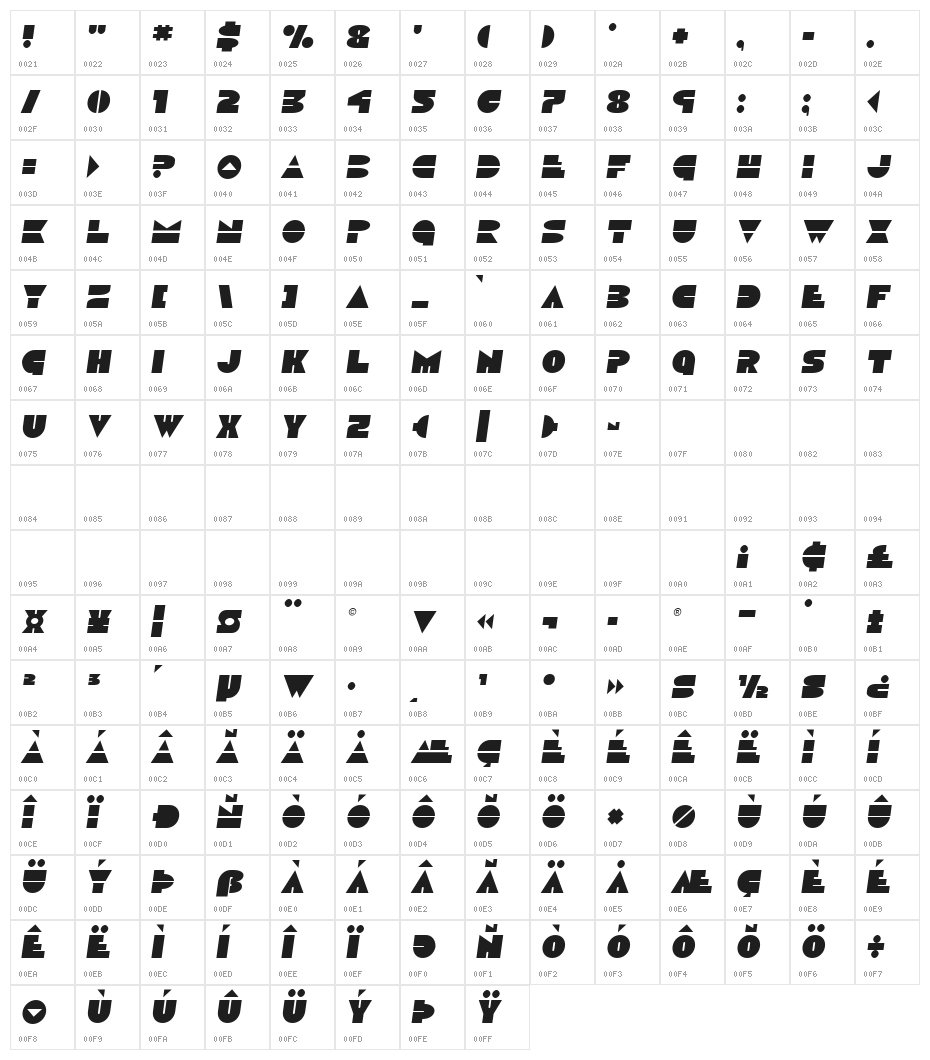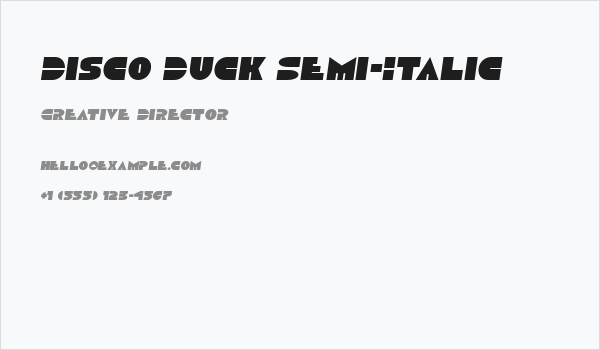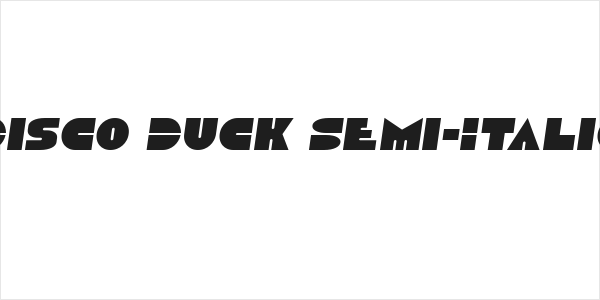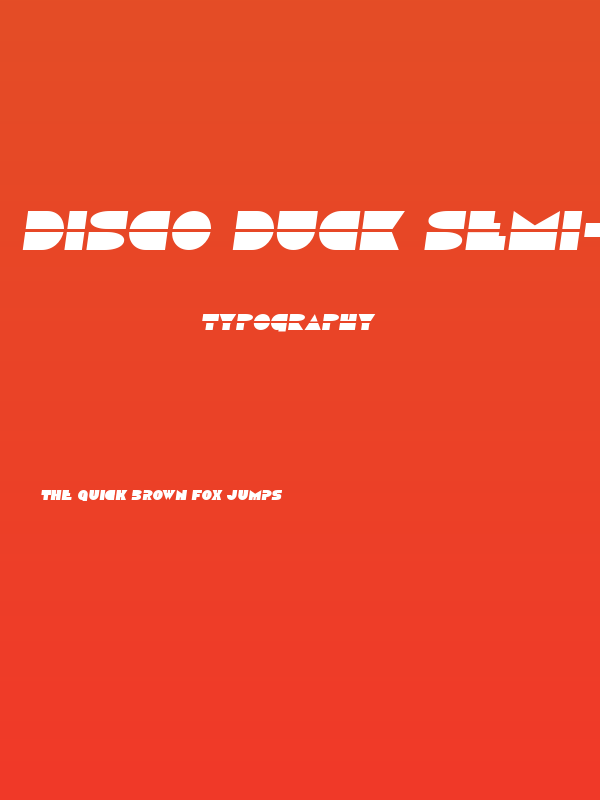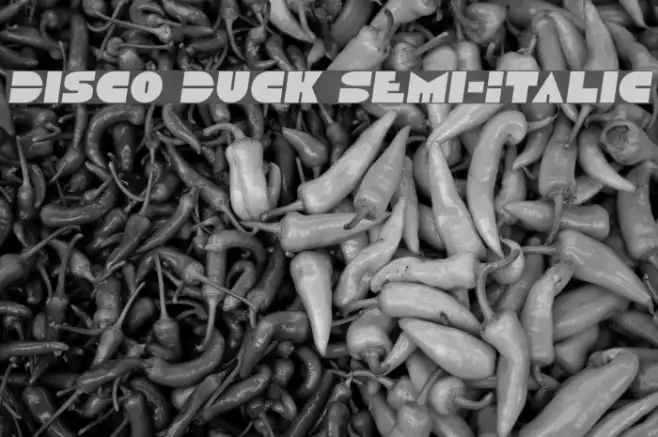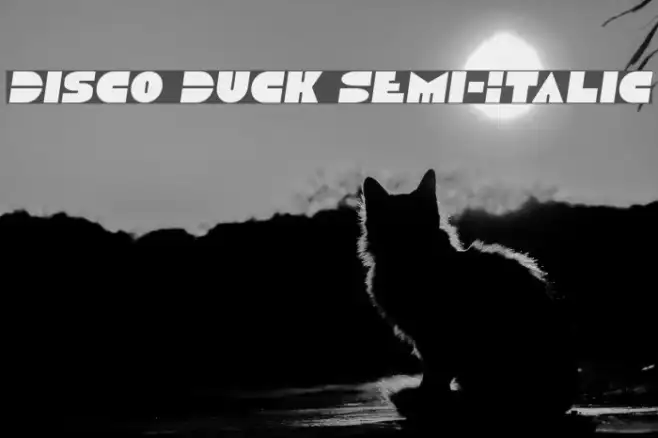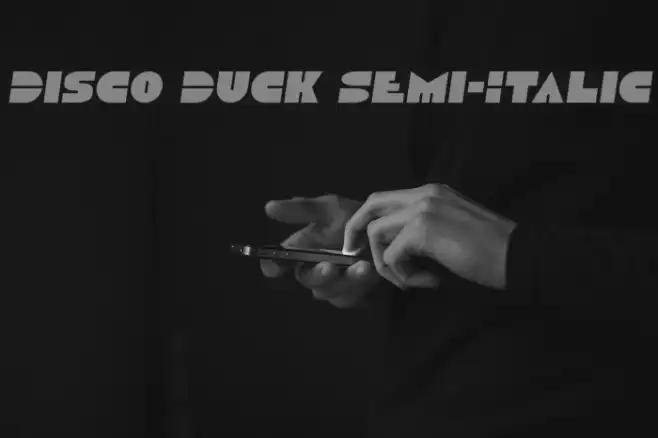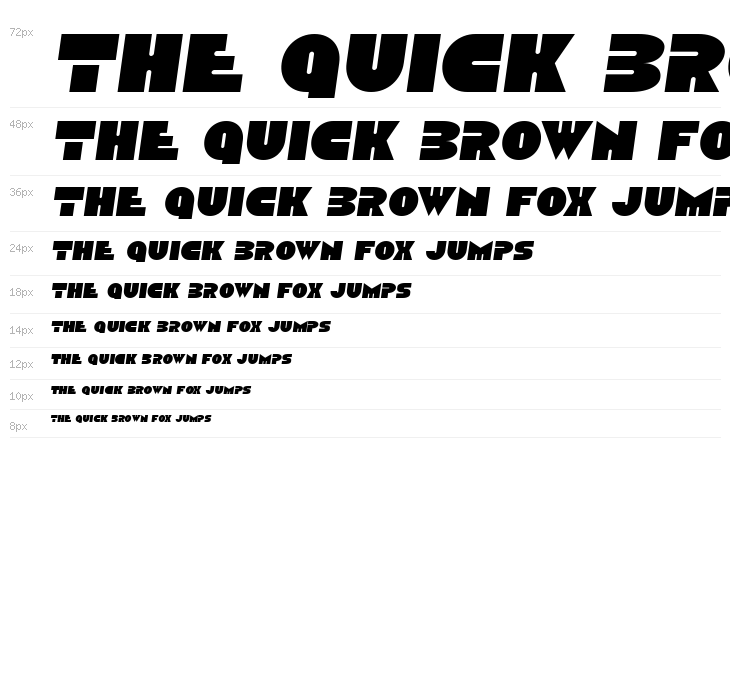
Disco Duck Semi-Italic Font
Disco Duck Semi-Italic Description
This font features a bold, geometric style with a distinct retro flair, reminiscent of 1970s disco aesthetics. The characters are constructed with sharp angles and clean lines, creating a sense of movement and energy. The uppercase letters are particularly striking, with unique shapes that make each character stand out. The numbers and special characters maintain the same boldness and geometric design, ensuring consistency across all elements. This font's semi-italic slant adds a dynamic touch, enhancing its lively and playful appearance.
DISCO-DUCK-SEMI-ITALIC UPPERCASE
DISCO-DUCK-SEMI-ITALIC LOWERCASE
DISCO-DUCK-SEMI-ITALIC OTHER CHARS